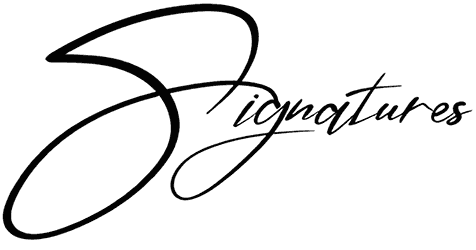
Chemistry Font
Chemistry is a handwritten font that is both modern and appealing. Even though the font is a little bit difficult to read, Chemistry is strongly recommended for use in projects that require a handwritten look, such as invitations, greeting cards, and other papers.